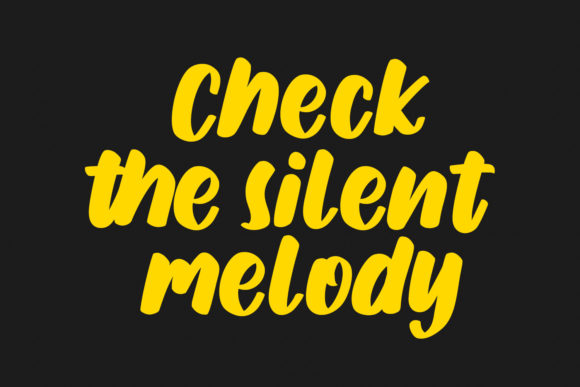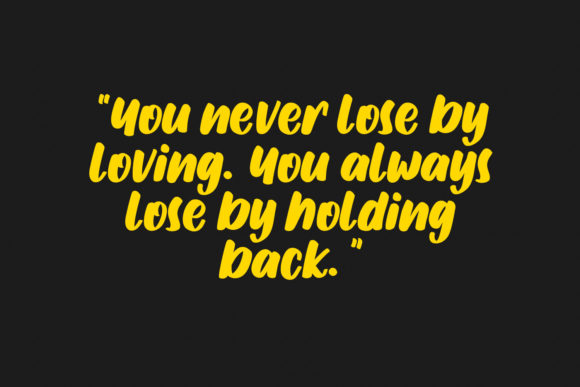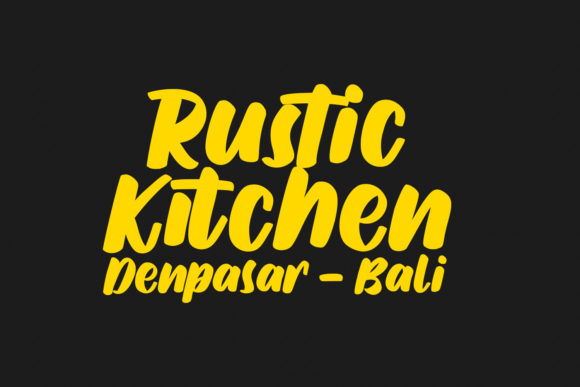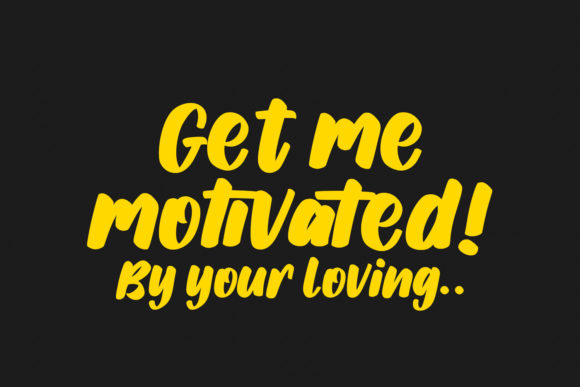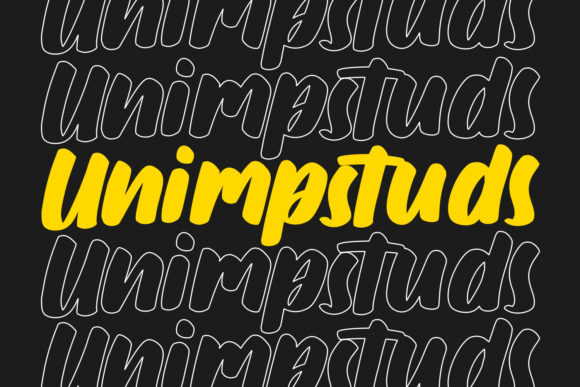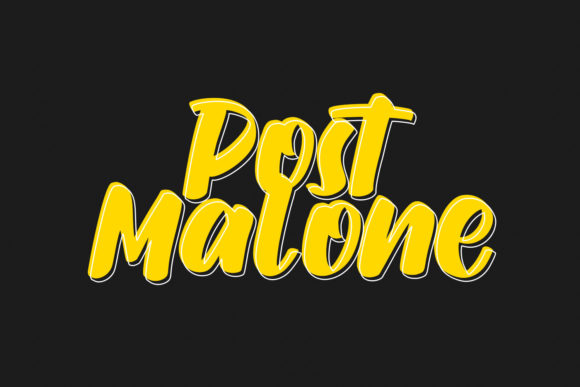
The Designer’s Delight: Citatlys Font
I still remember the time I was working on a project for a client who wanted a font that was both trendy and playful. I had spent hours scouring the internet for the perfect font, but nothing seemed to fit the bill. That was until I stumbled upon Citatlys Font. With its charming, dancing characters, it was love at first sight! In this article, I’ll share my experience with Citatlys, its features, and how to make the most of it in your designs.
Citatlys Font has quickly become one of my go-to fonts for creative projects. Here’s what I love about it:
- ✨ Unique and playful characters: Each letter seems to dance along the baseline, adding a touch of whimsy to any design.
- ✅ Trendy and modern feel: Citatlys has a fresh, contemporary look that’s perfect for designs that need a bit of flair.
- 💬 Excellent for headlines and titles: The font’s playful nature makes it ideal for grabbing attention and adding personality to your text.
Of course, no font is perfect, and Citatlys has a few small quirks:
- 🤔 Limited use for body text: While Citatlys is stunning for headlines, it may not be the best choice for longer blocks of text.
- ⚠️ Some characters may require manual kerning: Depending on the context, you may need to adjust the kerning to get the best results.
Citatlys Font comes with a range of OpenType features and glyphs that can enhance your designs. Here are a few tips:
- Stylistic alternates: Citatlys offers stylistic alternates that can add more variety to your text. Access these by using the Glyphs panel in Adobe applications.
- Ligatures: Citatlys supports ligatures, which can help create a more fluid, connected look.
The Story Behind Citatlys
Citatlys Font was designed with the goal of creating a unique, playful script font that would add a touch of whimsy to any design. Inspired by the beauty of handwriting and the elegance of calligraphy, Citatlys is the perfect blend of modernity and charm.
| What is Citatlys Font best used for? | Citatlys Font is ideal for headlines, titles, and short blocks of text where you want to add a touch of playfulness and whimsy. |
| Is Citatlys suitable for body text? | While Citatlys is stunning for headlines, it may not be the best choice for longer blocks of text due to its playful nature. |